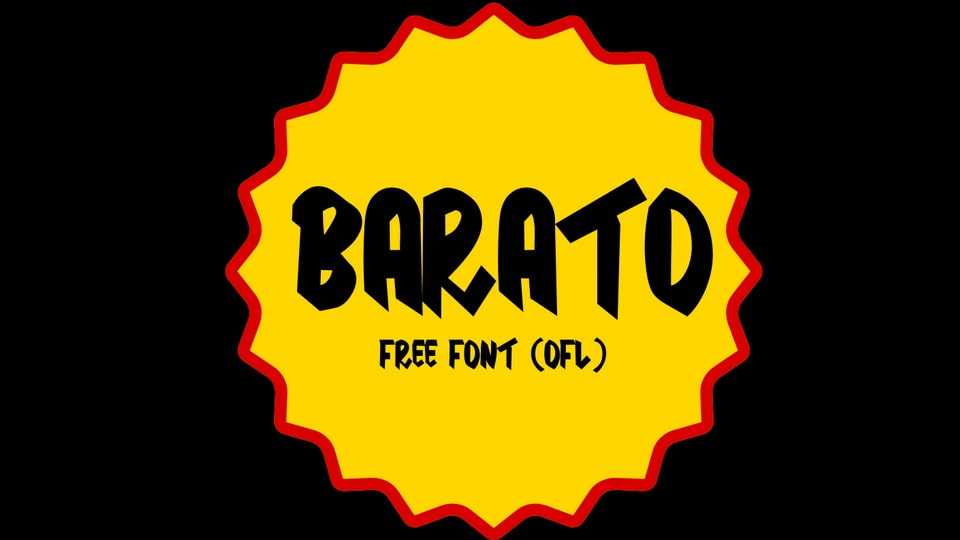
Download Barato font, a hand-crafted typeface inspired by the bold and lively strokes of hand-painted grocery signage. With its thick, brush-like letterforms and dynamic, imperfect edges, the font captures the authentic feel of traditional market signs.
Designer: Edson Silva